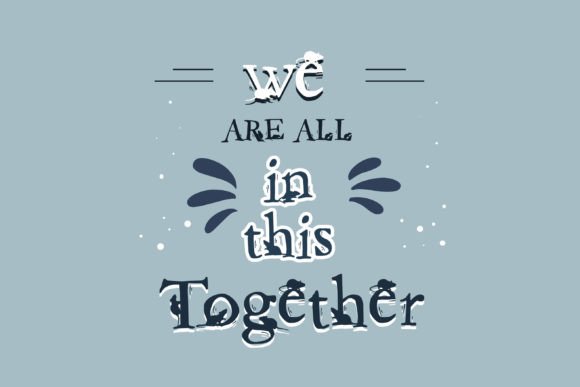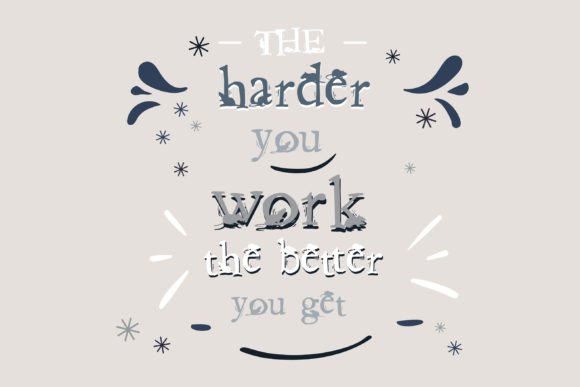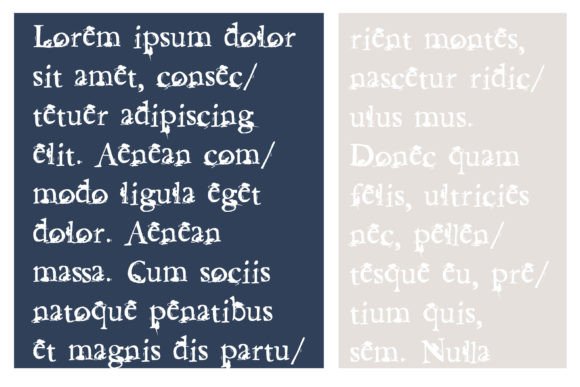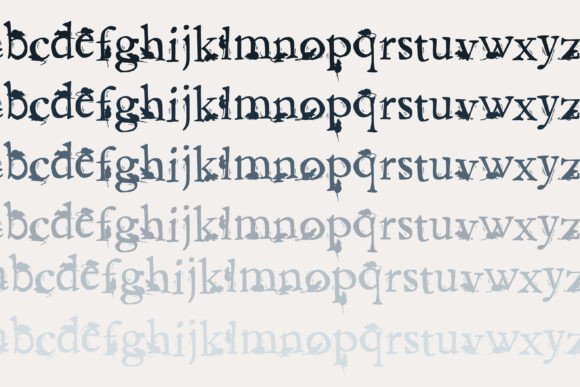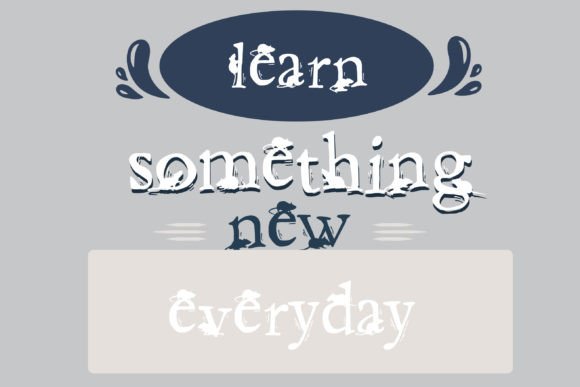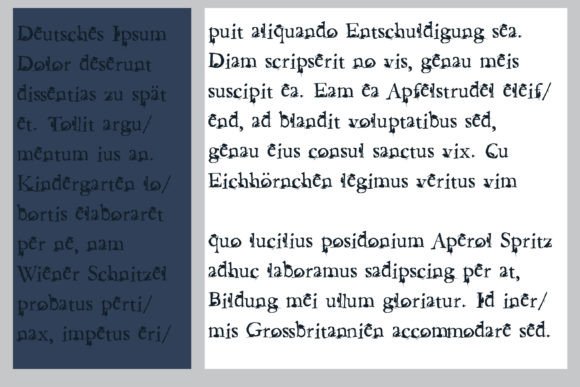
Introduction to Creepy Rat Font
As designers, we’ve all been there – staring at a blank page, trying to come up with the perfect idea for a creative project. For some, it’s the thrill of bringing a new design to life that gets the creative juices flowing. But what happens when you need a design resource that’s not just high quality, but also unique and eye-catching? That’s where the Creepy Rat Font comes in – a hand-crafted font that’s sure to bring a smile to your face and a touch of whimsy to your designs.
With its wiggly rats and playful feel, the Creepy Rat Font is the perfect addition to any design project. Whether you’re creating a greeting card, invitation, or other item, this font is sure to add a touch of personality and charm. And the best part? It’s available as a free download, complete with a transparent background, making it easy to use in any design software.
As a valuable design resource, the Creepy Rat Font is a must-have for any designer looking to add a little something extra to their work. Its high quality and unique design make it a standout choice for designers of all levels, from beginners to pros. So why settle for a boring, run-of-the-mill font when you can have a Creepy Rat Font that’s sure to bring a smile to your face and a touch of creativity to your designs?
Key Features of Creepy Rat Font
- Unique design style with a creepy rat theme, perfect for a creative project that needs a spooky touch.
- High-quality font with detailed illustrations, ideal for designers looking for a design resource that stands out.
- Transparent background option available, allowing for easy customization and versatility in design applications.
Honest Review: Creepy Rat Font
As a designer, I’m always on the lookout for unique and creative project resources. The Creepy Rat Font caught my eye with its quirky charm and versatility. Upon closer inspection, I was impressed with its high quality and seamless scalability.
- ✨ Unique and quirky design that adds character to any project
- ✨ High-quality font with seamless scalability
- ✨ Transparent background option for easy placement
However, there are a few limitations to consider. The font may not be suitable for all design projects, particularly those that require a more professional or formal tone. Additionally, the font’s quirky nature may not appeal to all designers.
Overall, I’m impressed with the Creepy Rat Font’s potential as a design resource. Its unique charm and high-quality design make it a great option for designers looking to add some personality to their projects. Just be aware of its limitations and use it judiciously.
Tips for Getting the Most Out of Creepy Rat Font
Use the Creepy Rat Font to add a touch of whimsy to your designs. Experiment with different font sizes and colors to create a unique look. You can also use the font in combination with other design elements to create a cohesive and engaging visual identity.
The Creepy Rat Font is perfect for creating spooky or Halloween-themed designs, such as invitations, posters, and social media graphics. You can also use the font in more general design projects, such as branding and marketing materials, to add a touch of personality and creativity.